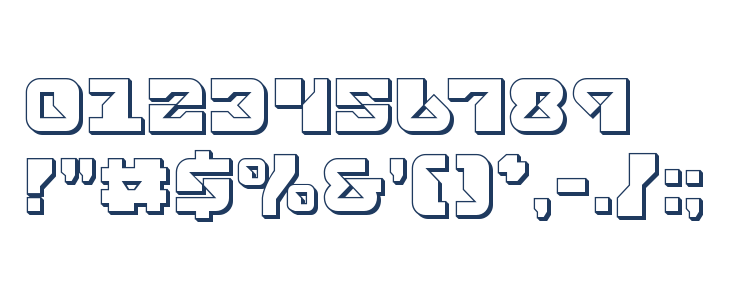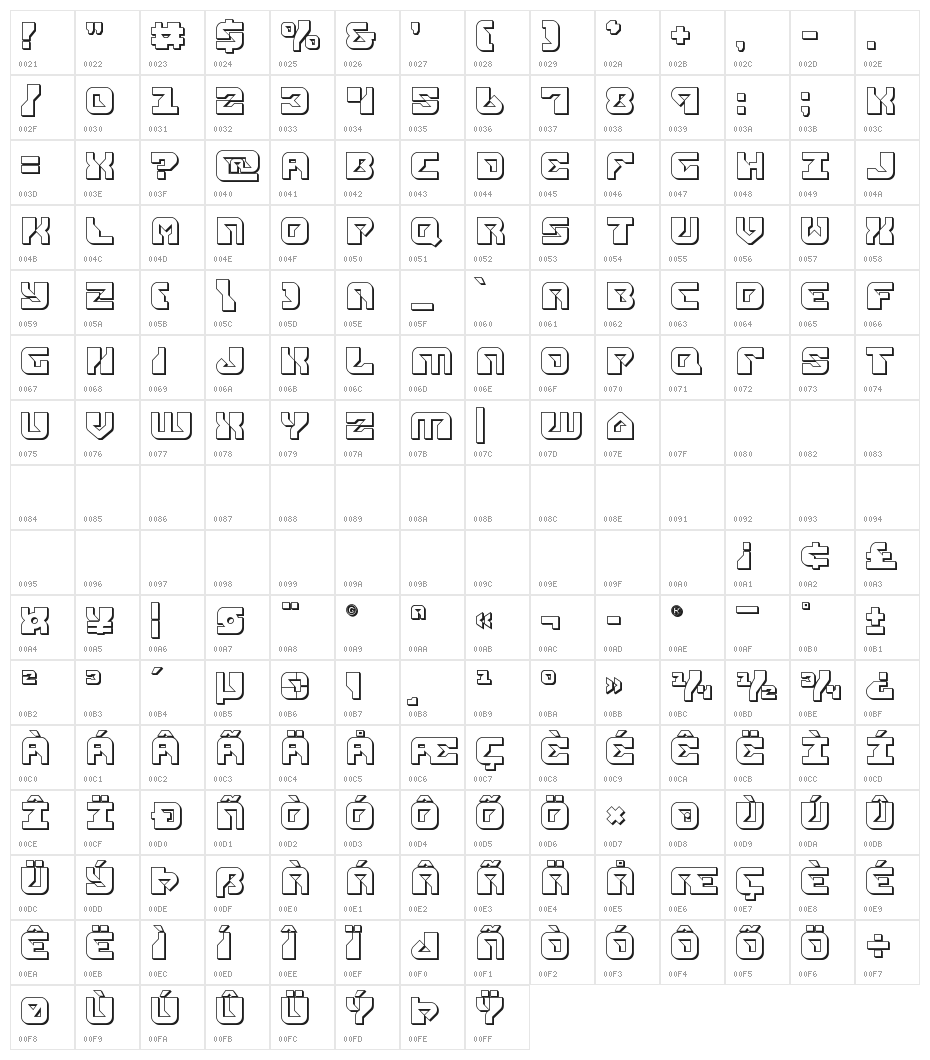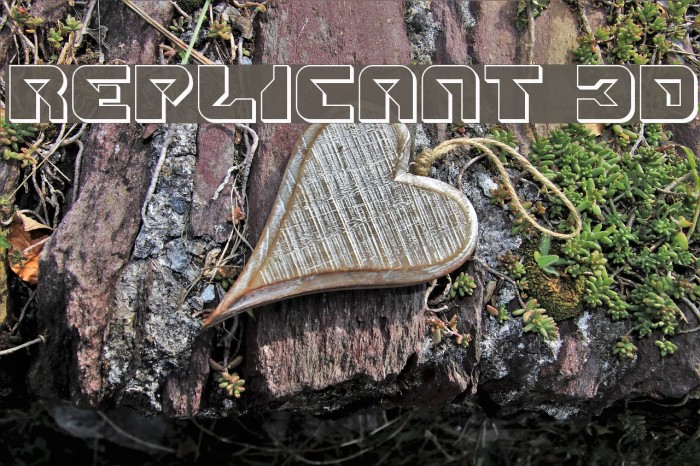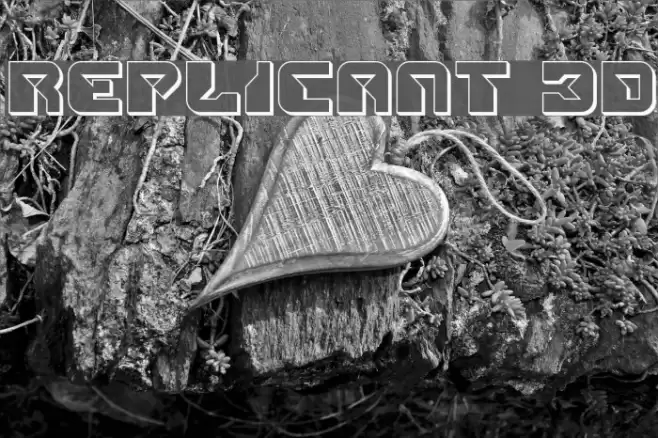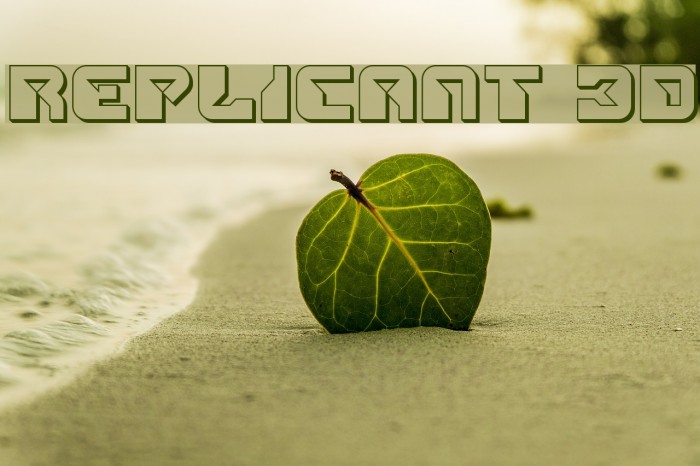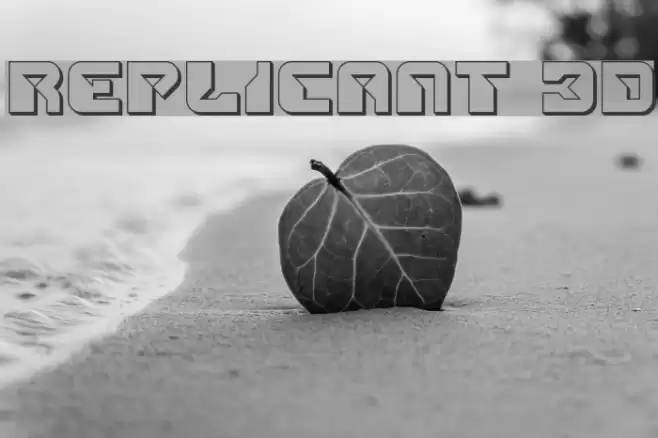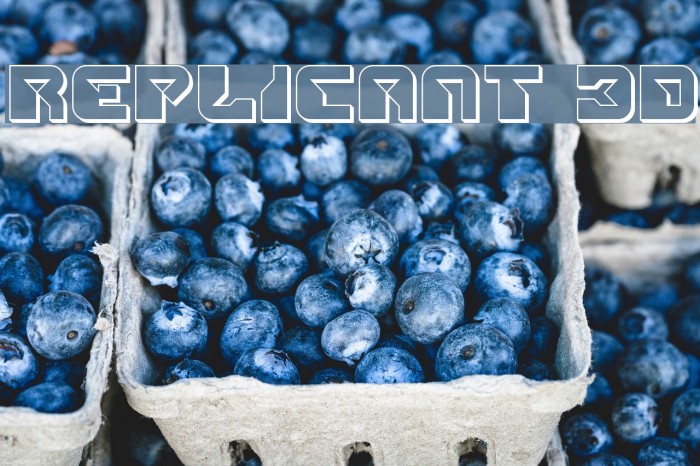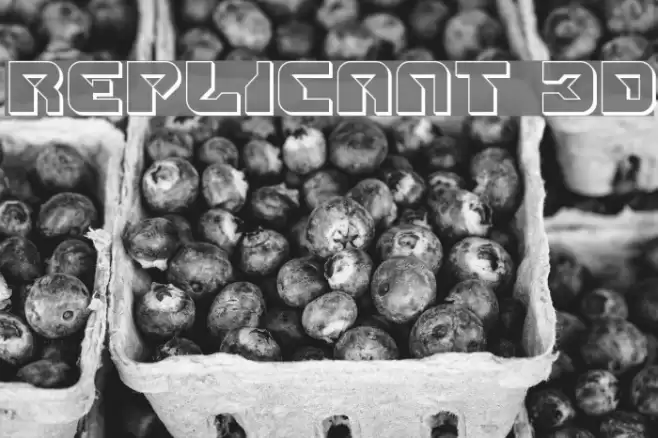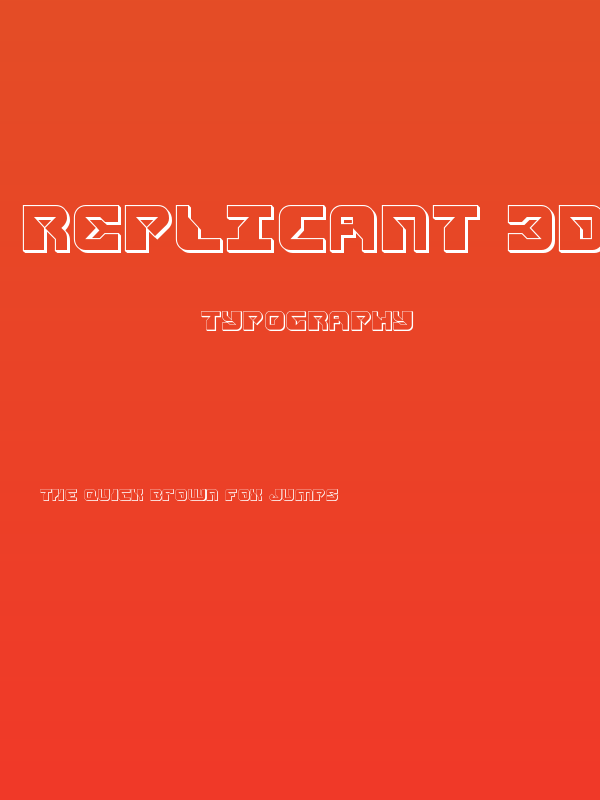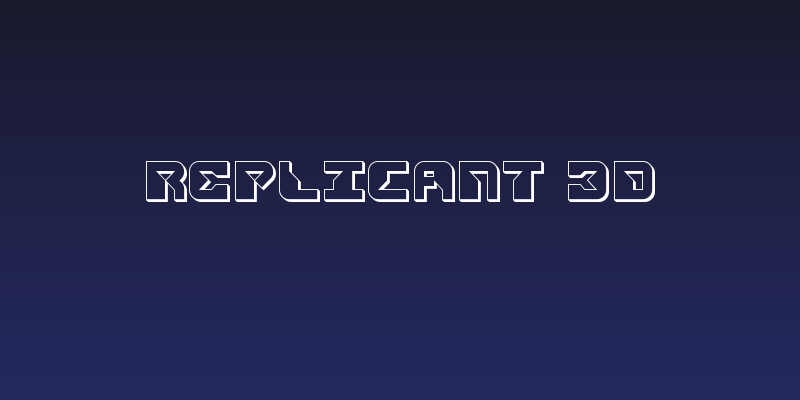
Replicant 3D Font
Replicant 3D Description
This font features a bold, three-dimensional appearance with a futuristic and geometric design. Each character is outlined, creating a hollow effect that enhances its 3D look. The angular and blocky shapes give it a modern and tech-inspired feel, making it stand out in any design. The uppercase and lowercase letters maintain a consistent style, with sharp edges and clean lines. Numbers and special characters follow the same design principles, ensuring uniformity across all elements.
Overall StyleFuturistic
Proposed ProjectsIdeal for sci-fi themed projects, technology branding, video game titles, and futuristic posters.